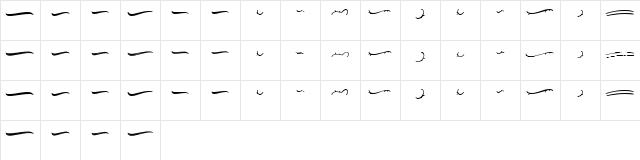
Saekana swash Regular
Foundry: Sizimon
Designer: Faisal Tanjung
Saekana swash flows with the natural rhythm of handwritten lettering, making it ideal for designs that call for warmth and personal expression.
Font Pairing: Combine Saekana swash with a simple geometric sans for maximum contrast - the tension between flowing curves and clean structure is a classic typographic pairing.